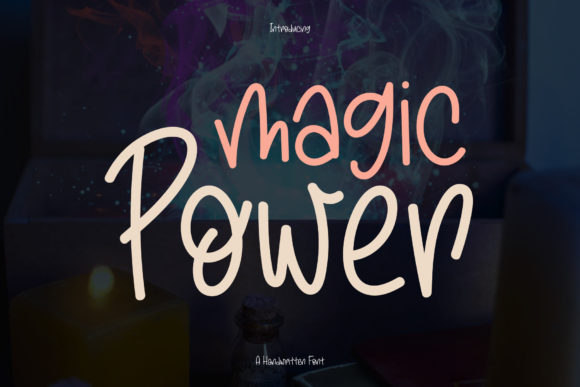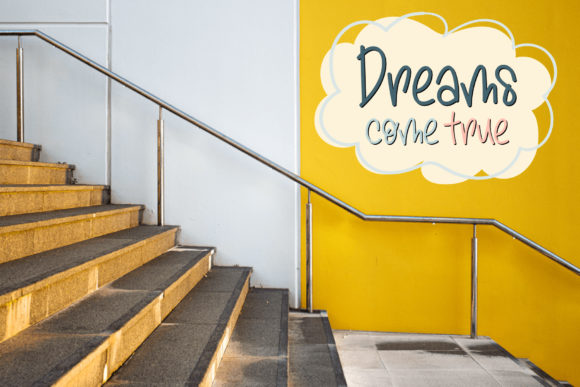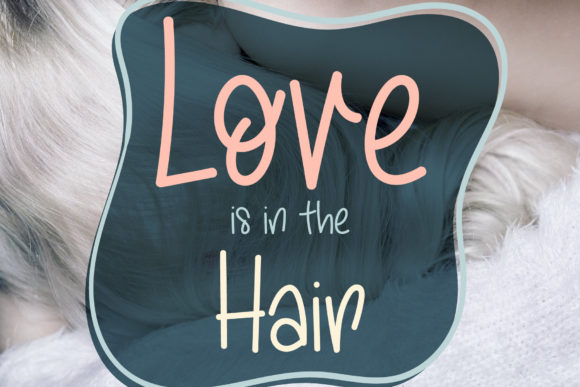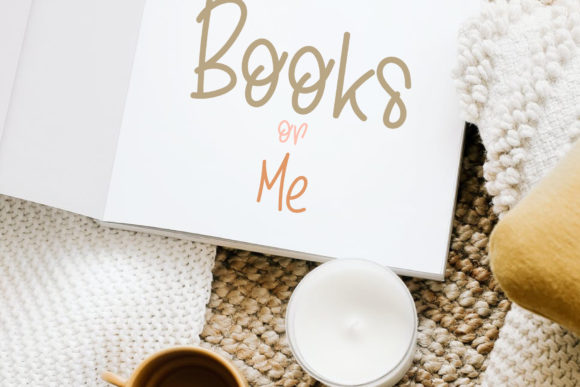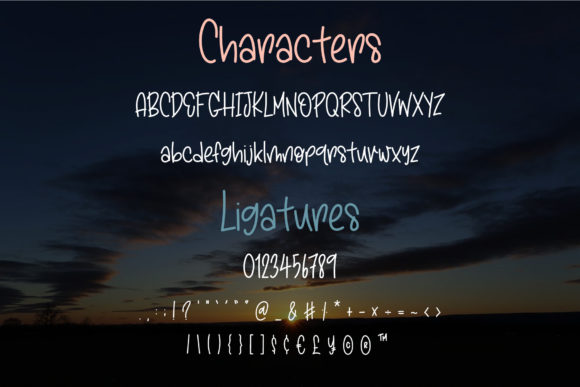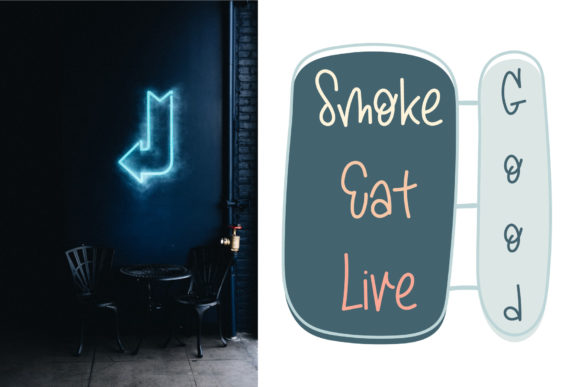
Magic Power Font
About Magic Power Font
Magic Power is a simple, quirky and adaptable handwritten font. Its informal style and casual vibe will make this font a go-to choice for each of the creations that require a relaxed touch.